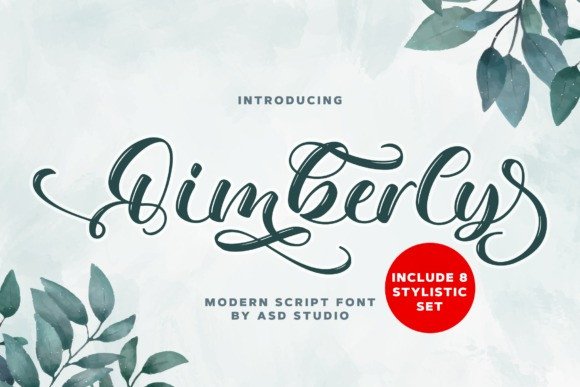
Qimberly Font
Qimberly Calligraphy Font is font script that has a thick, bold and strong style that has an elegant, classic and unique impression. It’s a modern calligraphy font manufactured by Asd Studio. It brings 8 stylistic sets that will make your design look more attractive and beautiful. Use this gorgeous and unique typeface to bring any DIY project to life!